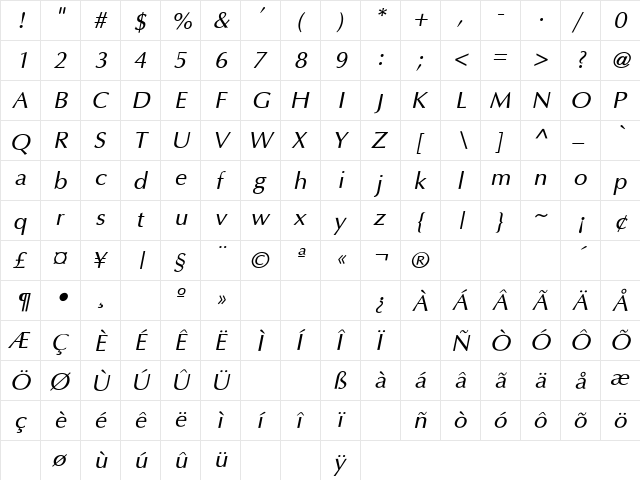
Ace Italic Regular
Design Context for Ace Italic Typeface
Ace Italic takes a measured approach to typography — its balanced proportions and neutral character make it a reliable workhorse for both digital and print work. Its italic angle brings a sense of urgency and motion to the letterforms.
Pro Tip: Try Ace Italic for annotation and caption copy alongside an upright companion — the contrast in angle creates a dynamic but ordered typographic system.